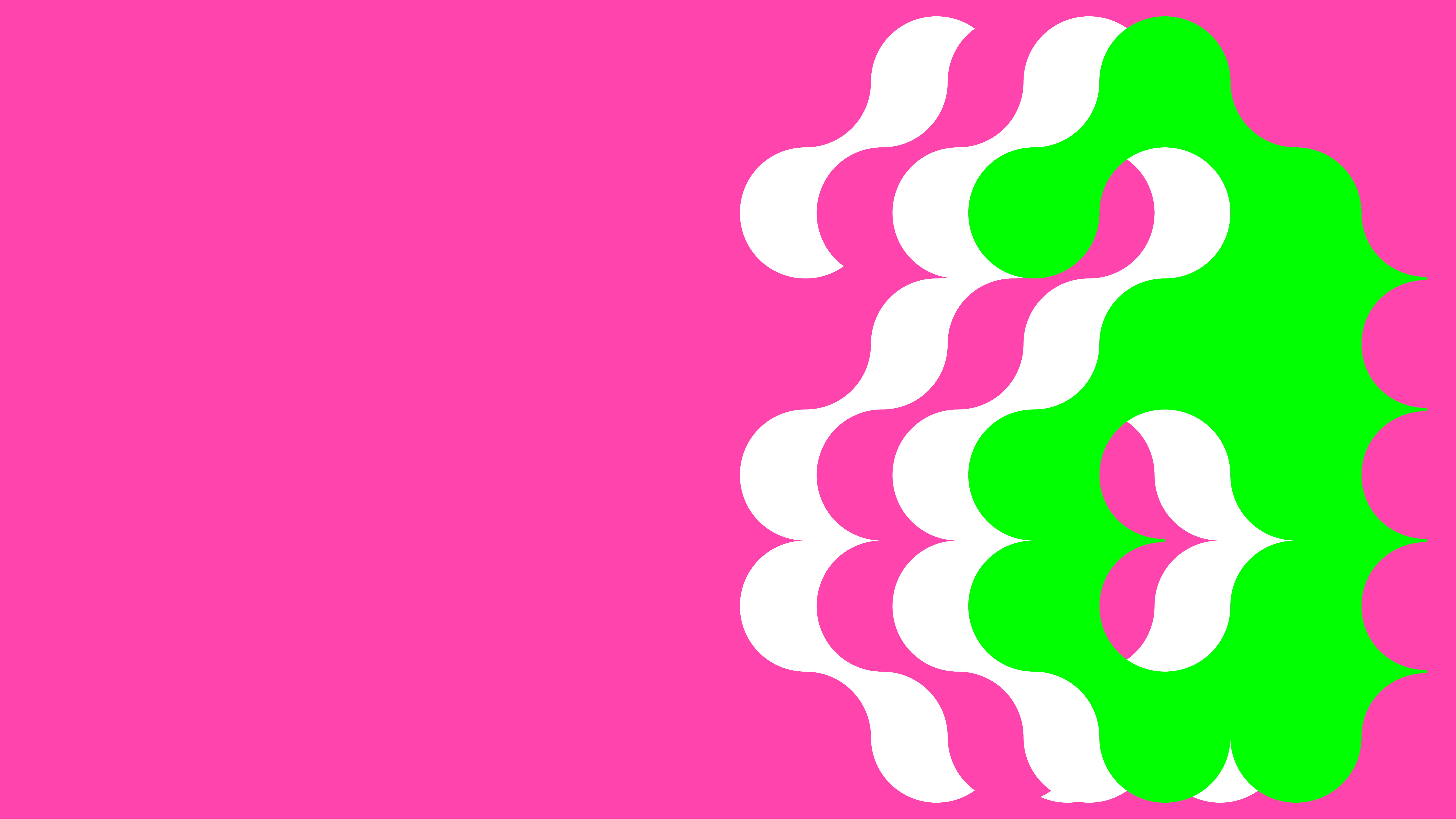
F37 Galax
Like an intergalactic species, F37 Galax is an amorphous and convention breaking experiment that bursts to life, even before the sentence is finished.
Built from a modular grid of circles, the font expands and contracts as it is typed. Each glyph comes with 3 widths that cycle throughout the words, imbuing the font with an unpredictable playfulness. The ridges and valleys of the font create movement and fluidity that play well against the otherwise mechanical style. If the undulating width are too much, the font can be limited to one of its three widths using the OpenType Stylistic Sets.
F37® × Keelin Wright
F37 Galax
I’ve always been interested in typography, but my fascination really took root during my time as a teaching assistant alongside the respected typographer Paul McNeil. After completing a Master's in Graphic Design at the University for the Creative Arts, I honed my skills while interning at F37®, where I got to dive deeper into the world of type design. Nature and personal experiences are where I draw most of my inspiration. I'm captivated by the organic beauty around us, which led me to create Galax—a typeface inspired by the charming heart-shaped leaves of the galax plant. After partnering with F37®, I'm eager to continue honing my skills and crafting designs that resonate with audiences.
Inspiration
F37 Galax
Tell us about the inspiration behind your collaboration with F37®×. If it was an unused concept, what was the potential use case for it.
My collaboration with F37® started with some discarded type sketches I worked on during my master's course at uni. I was experimenting with modular grids, trying out different ideas. When I interned at F37®, Rick spotted these sketches and saw potential. He thought there was something cool there and encouraged me to dig deeper and develop it further. The shapes in the counters, inspired by the leaves of the galax plant, brought a special organic vibe to the design, adding extra creativity and meaning to the typeface.
When starting the process of creating your font, what typographic conventions did you look to break or experiment with? Or were there conventions of functionality you championed?
I wanted to explore typographic conventions in a unique manner. Instead of completely shunning traditional practices, I aimed to break conventions within the framework of a modular grid. I believe F37 Galax pushes the boundaries of what can be achieved within this structure by experimenting with unconventional shapes and arrangements and by incorporating three widths within the one typeface.
Now that your typeface has launched, what would be your dream project to use your F37® typeface on?
Now that F37 Galax is out there, I would love to see it being used for a music festival's branding. With its futuristic and alternative feel, F37 Galax seems like the perfect fit for such an event. I think it holds the potential of crafting a unique identity.
What have you learnt through developing and creating your own typeface(s) with our F37® type designers?
Through developing and creating my typeface with F37®, I've learned the importance of trusting ideas and seeing them through, even if I didn't initially recognise their potential. Additionally, I've gained a valuable lesson in the power of playfulness and experimentation with ideas.
How would you describe your typeface in three words?
Organic, experimental, weird.